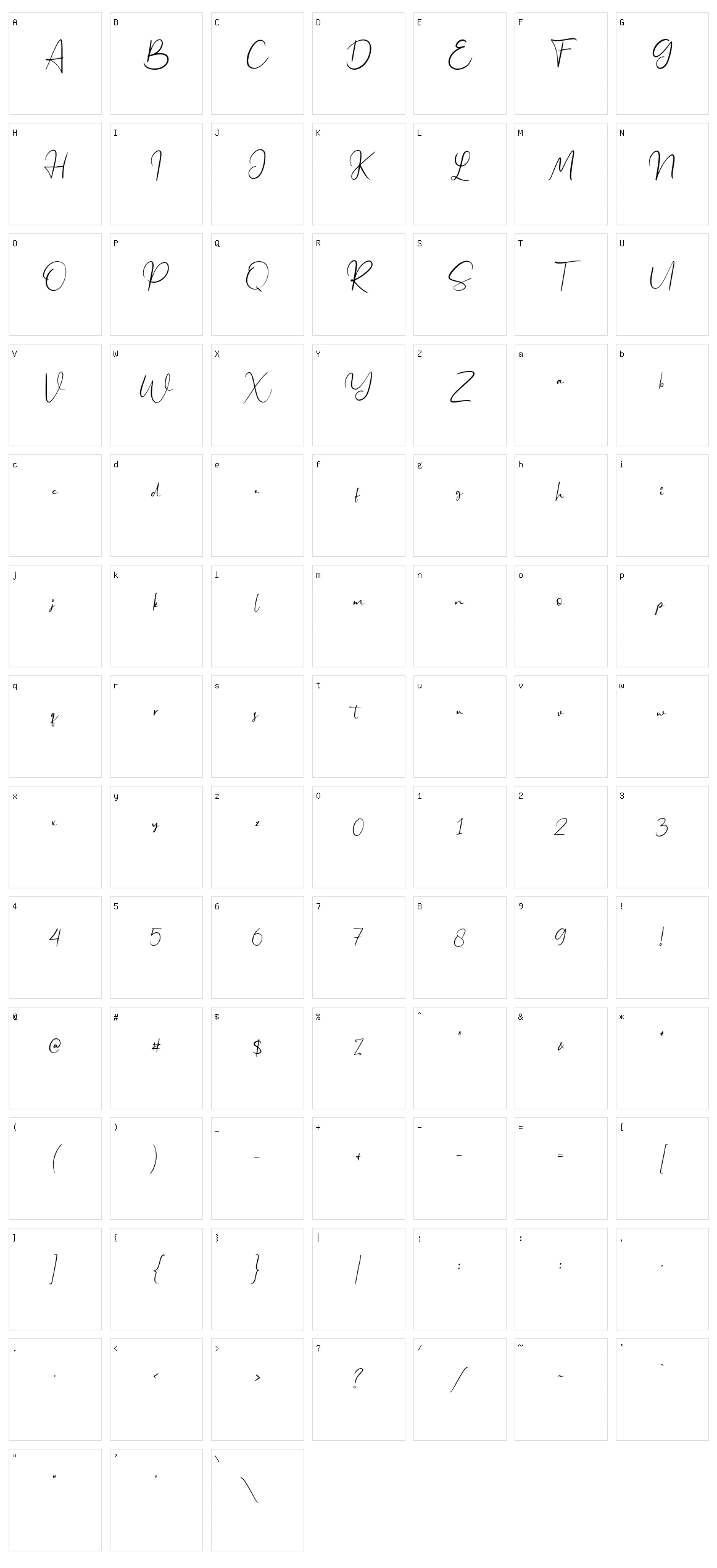
The free font Jennifer is carefully designed by Sarah Robbaniyyah, showcasing a thoughtful balance of creativity and usability and falls under the Script font style. When you download the ZIP file, it contains only 1438.1 KB of font files, making it lightweight and quick to download. Please review the license details below to understand permitted usage and distribution rights. If license information is not available, we recommend using this font for personal projects only or contacting the author directly for commercial usage permissions.
Jennifer - signature font is a natural & modern handwritten font. I'ts Perfect for logo, invitation, stationery, wedding designs, social media posts, advertisements, product packaging, product designs, label, photography, watermark, special events or anything. This font include : Jennifer OTF-TTF-WOFF, 48 Standar Ligatures, and also Multilingual support.